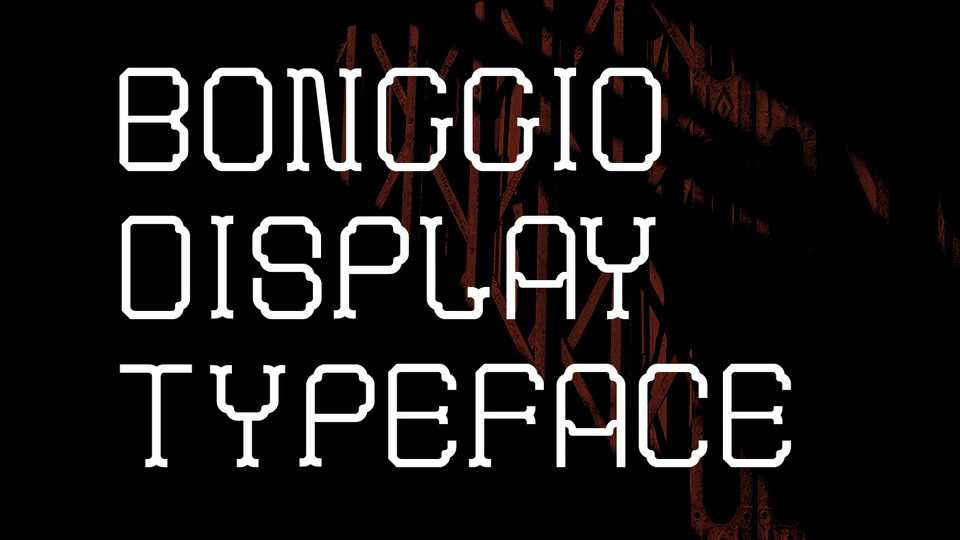
Download Bong Gio font, a decorative typeface, inspired by the popular Bong Gio brick pattern in Saigon in French occupation times. With the desire to be able to re-create and re-present the old culture of Saigon, Bong Gio typeface delivers a classic and traditional style.
Designer: Vu Pham